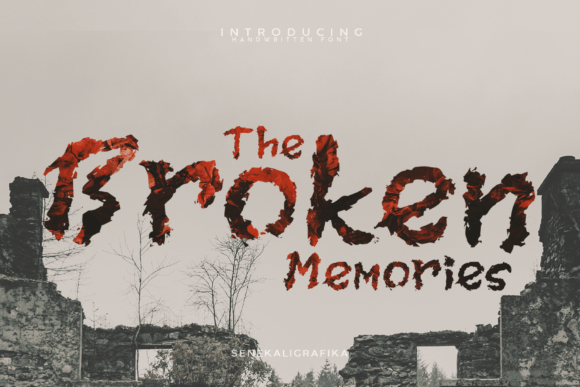
Unleash the Darkness: The Allure of Broken Memories Font
Have you ever stared at a horror movie poster from the 80s and felt an instant chill run down your spine? The combination of eerie imagery, haunting typography, and an air of mystery is what makes these classic posters so captivating. It’s a creative moment we’ve all experienced at some point, and it’s exactly this feeling that inspired the creation of the Broken Memories Font.
This bold, striking font is designed to evoke the same sense of foreboding and unease that we experience when watching a thrilling horror movie. With its hard strokes and signature style, Broken Memories Font is the perfect tool for designers looking to create unique and captivating typographical designs for their projects. Whether you’re working on a branding campaign, a movie title, or album cover, this font is sure to add an air of mystery and intrigue to your work.
Broken Memories Font Key Features
- Font Family: Broken Memories, a distressed and weathered font family with a unique aesthetic.
- Size: The font family includes a range of weights from Extra Light to Black, with 8 styles in total, allowing for flexibility in design applications.
- Unique Characteristics: Distressed texture, worn edges, and subtle imperfections give the font a nostalgic and vintage feel, perfect for creating a sense of history and authenticity.
Broken Memories Font Review
I’ve been working with the Broken Memories Font for a few projects now, and I must say, it’s been an interesting experience.
- The font’s distressed and worn look is perfect for projects that need a vintage or retro feel.
- The wide range of weights and styles available makes it easy to find the perfect fit for your design needs.
- The font’s irregularities and imperfections add a unique touch to any design, making it stand out from more traditional fonts.
- The font can be difficult to read in smaller sizes, especially for long blocks of text.
- The inconsistent spacing between letters can make it hard to line up text properly.
- The font’s ornate details can be overwhelming if used in excess, making the design feel cluttered.
While the Broken Memories Font has its limitations, I think it’s a great choice for projects that require a unique and distressed look. With a little creativity and restraint, it can be a real showstopper. However, it may not be the best fit for projects that require clear and concise typography.
The Broken Memories font is ideal for creating distressed, vintage, or retro designs. Use it for titles, headings, or body text in posters, flyers, or social media graphics. You can also use it for creating a worn or aged effect on digital art, logos, or branding materials.
Yes, the Broken Memories Font is highly customizable. You can adjust the font size, color, and style to fit your design requirements. Additionally, the font supports a range of OpenType features, including ligatures, swashes, and contextual alternates, allowing for a high degree of customization and creativity.